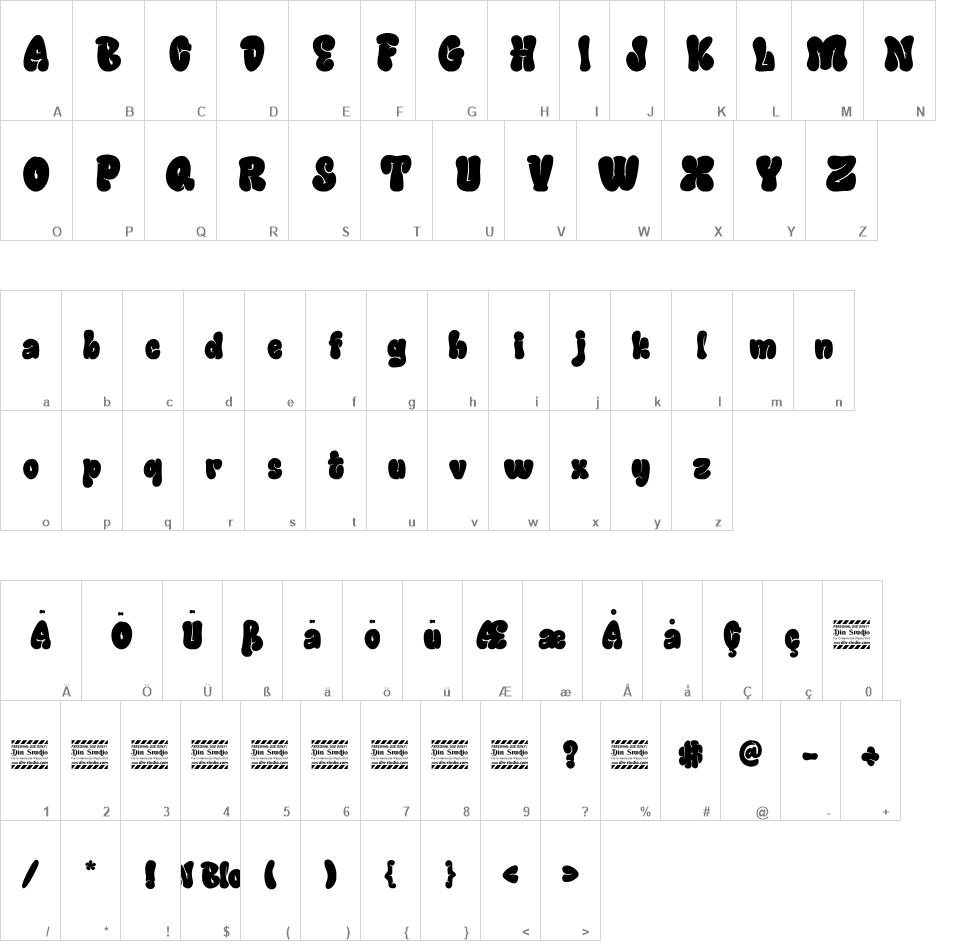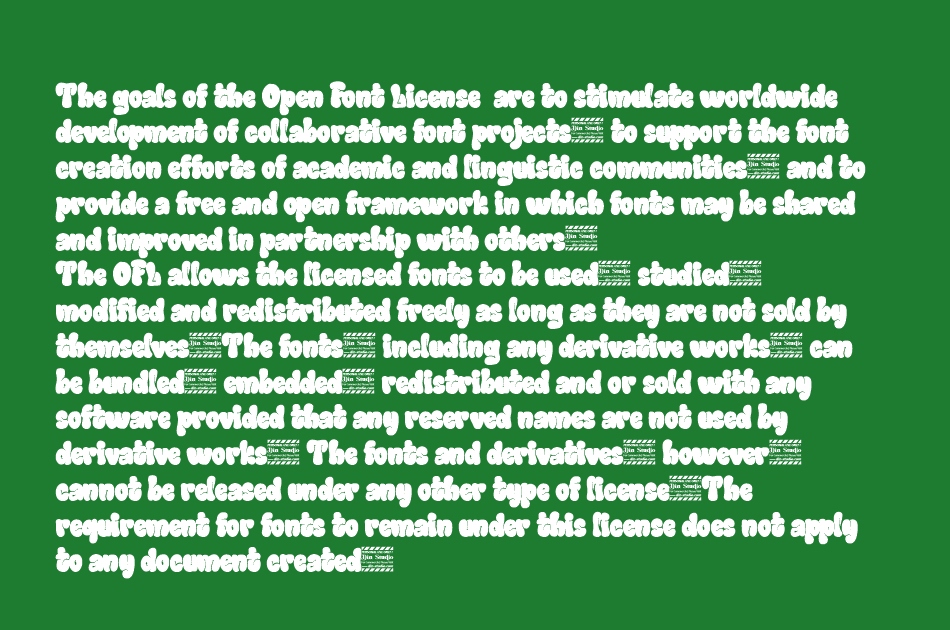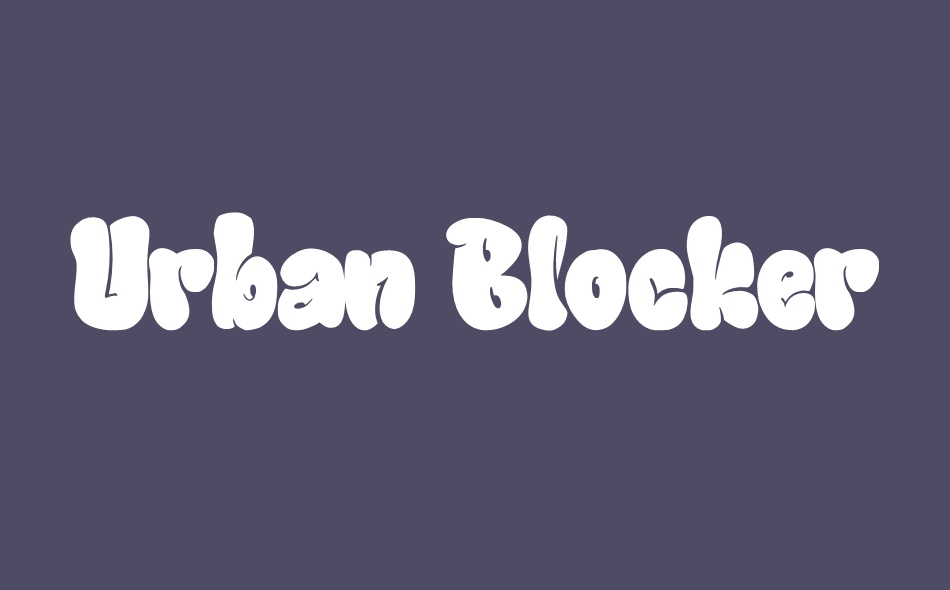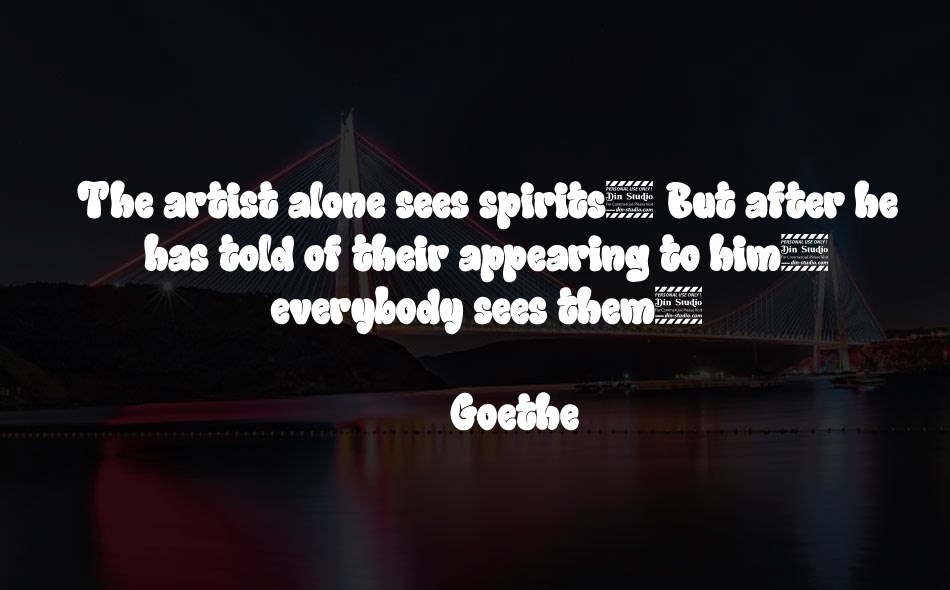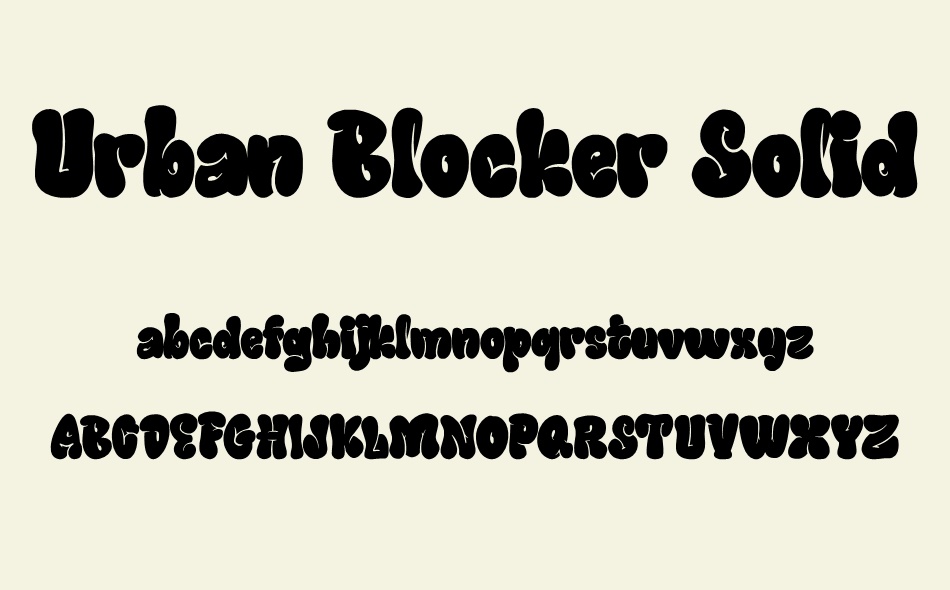
Urban Blocker font
Introducing Urban Blocker-A Graffiti Font
This bubble graffiti font can be used for a host of different content needs and projects. An excellent
choice to add the right amount of street vibe and playfulness. Create gorgeous printed quotes, standout packaging, or beautiful t-shirts! You can even use it to create amazing headings, logos, menus, andsocial media graphics.